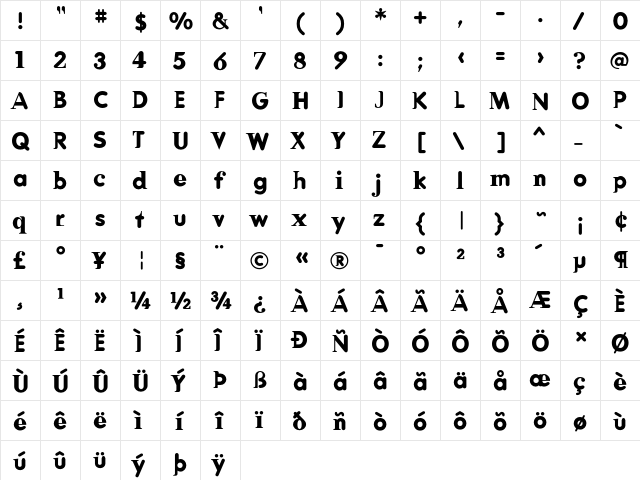
DeadHistory Bold Bold
| Foundry | Emigre Graphics, Designed by P. Scott Makela |
Design Context for DeadHistory Bold Typeface
DeadHistory Bold is a composed and adaptable typeface that performs quietly and consistently across a wide range of design contexts. The heavy weight commands attention and anchors typographic hierarchies.